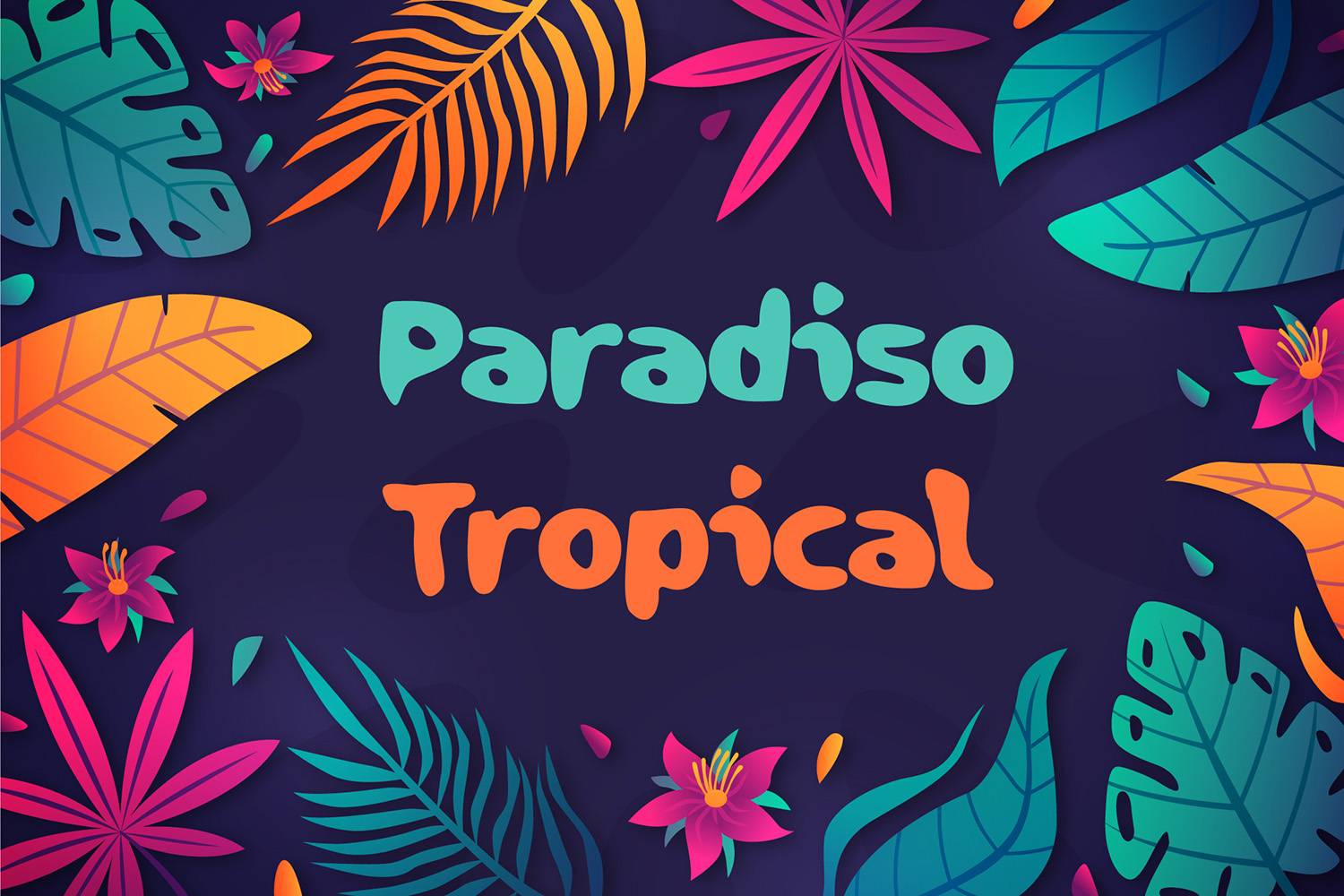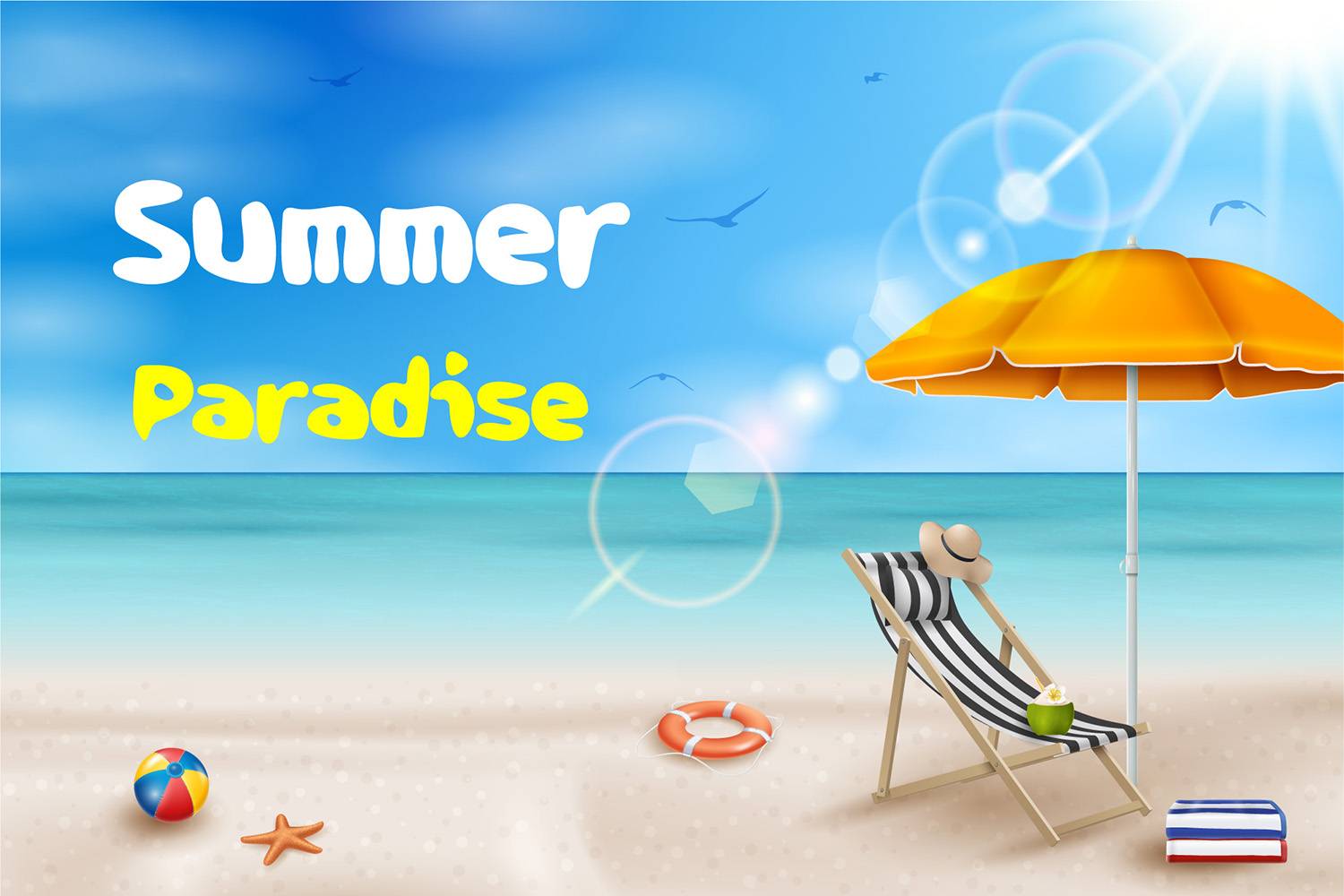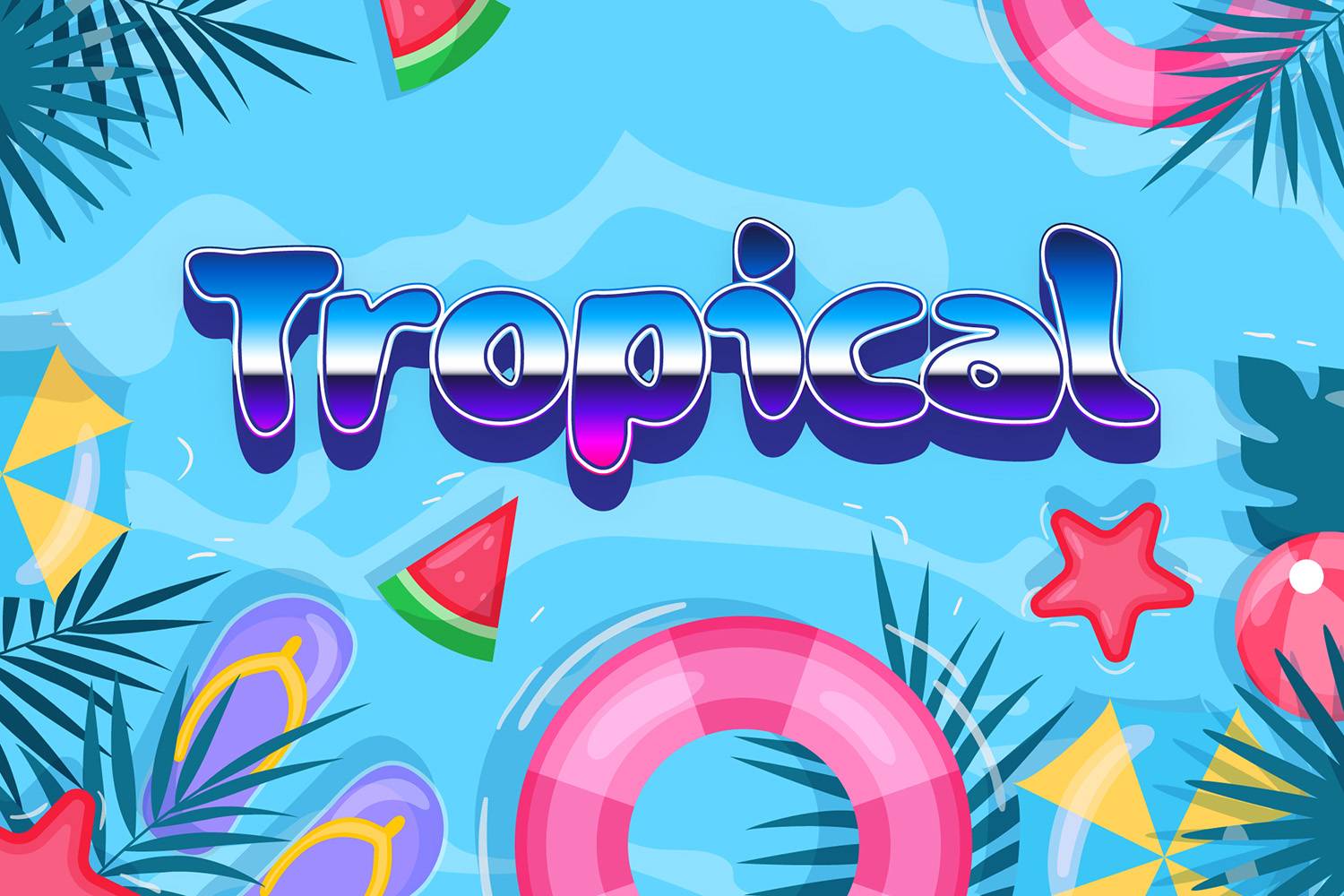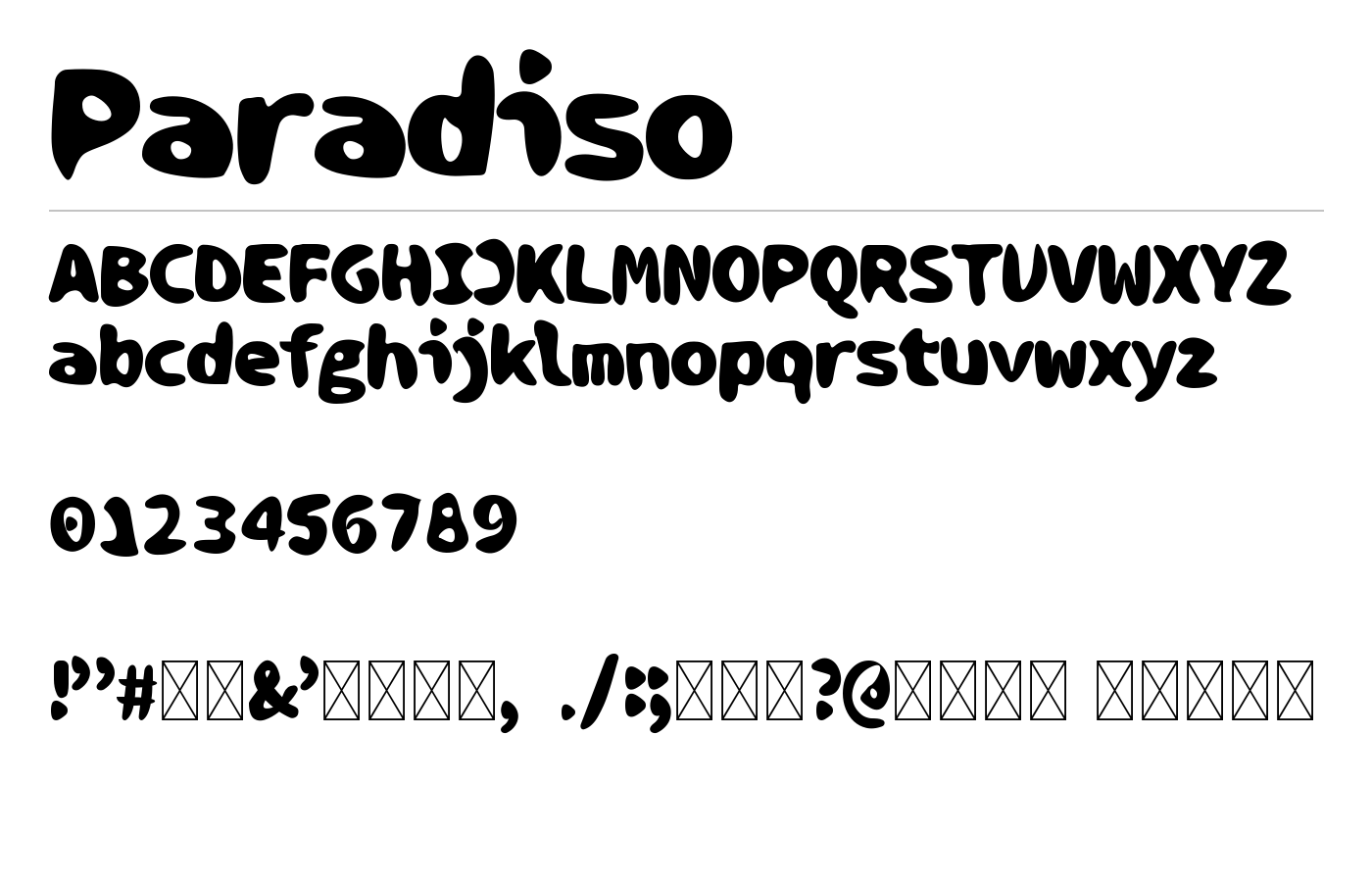
Paradiso Tropical is a bold, playful sans serif font with rounded, organic shapes that evoke a fun, tropical vibe. Its irregular, soft-edged letterforms with medium x-height give it a casual and approachable feel, perfect for lively branding or eye-catching headlines. This font works great for designs seeking a cheerful, relaxed atmosphere, such as vacation promos, party invitations, or kid-friendly projects.
Paradiso Tropical Font
About Paradiso Tropical Font
| Font family | Paradiso Tropical Font |
| Release date | 2021-06-19 |
| Designer | Vladimir Carrer |